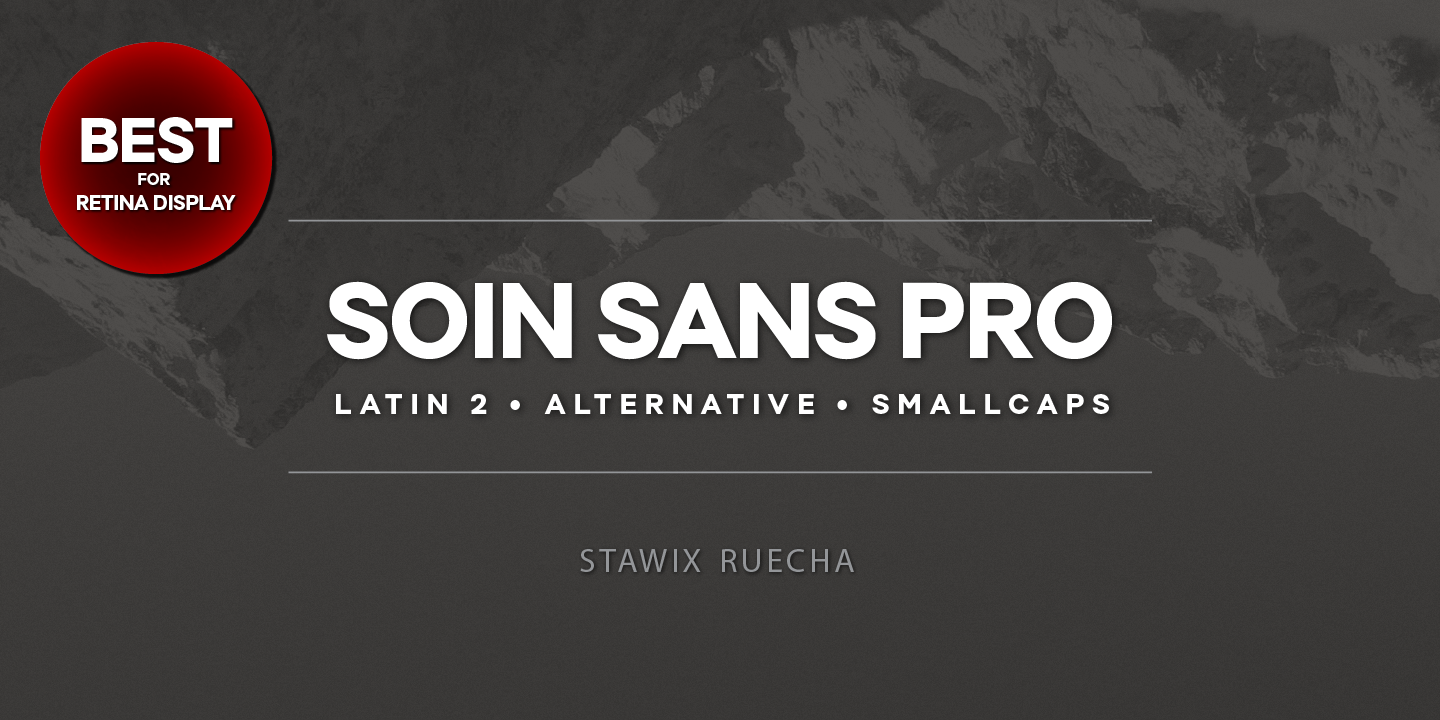
The Soin Sans Pro Font is perfect for various design applications including healthcare professional branding, medical care clinic logos, wellness treatment center graphics, therapeutic service marketing, nursing care facility signage, professional medical documentation, healthcare app interfaces, and compassionate care provider materials. This caring typeface works exceptionally well for healthcare brands and projects requiring professional medical character with therapeutic appeal.
What makes Soin Sans Pro Font exciting is its caring and professional character that instantly conveys medical expertise while maintaining human compassion with therapeutic precision. The font features clean letterforms with healthcare aesthetics and caring qualities that evoke feelings of trust, professionalism, and medical competence. Its caring styling and professional appearance make it perfect for brands that want to establish medical credibility and connect with patients seeking quality healthcare and compassionate medical treatment from trusted professionals.
The Soin Sans Pro Font family includes multiple weights and styles, offering designers flexibility for diverse healthcare applications. The family typically consists of regular, bold, light, and medical variations, along with healthcare decorative elements and professional ornaments, providing comprehensive coverage for projects that need both medical authority and visual compassion across different therapeutic contexts.
Whether you're working on medical practices, healthcare services, or therapeutic care campaigns, Soin Sans Pro Font Free Download delivers the professional quality and visual care that modern healthcare designers require. The font's medical care design combined with its excellent readability makes it an essential tool for creating compelling visual communications that embody healthcare excellence and bring the compassionate spirit of professional medical care to life.